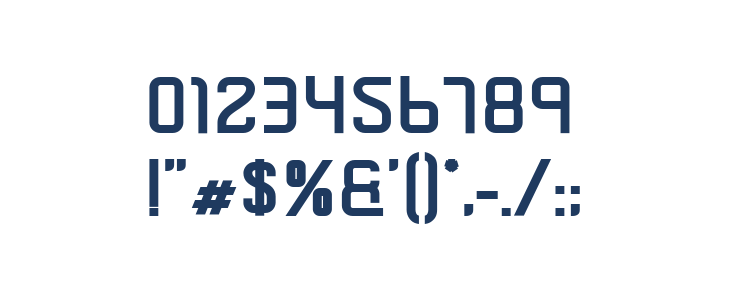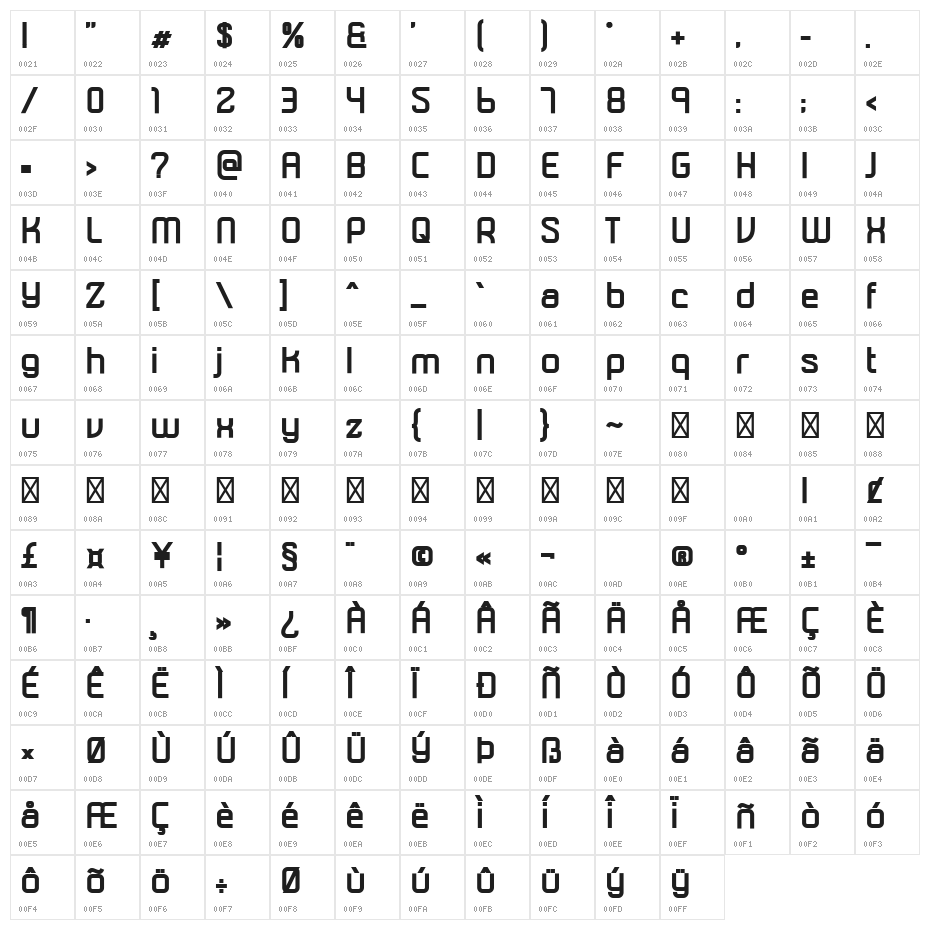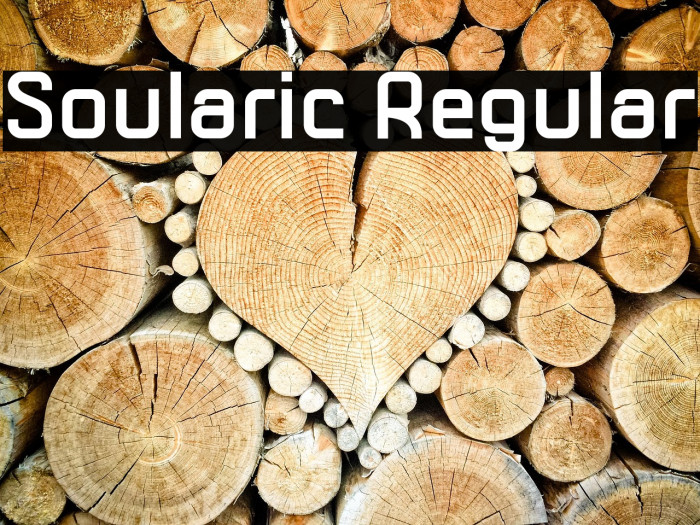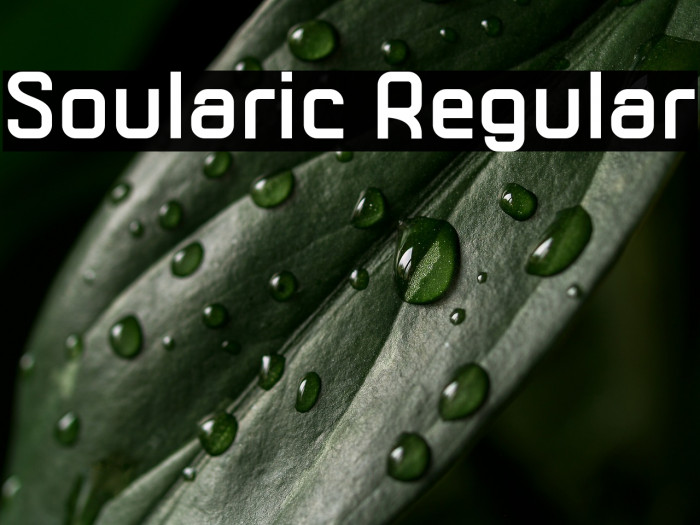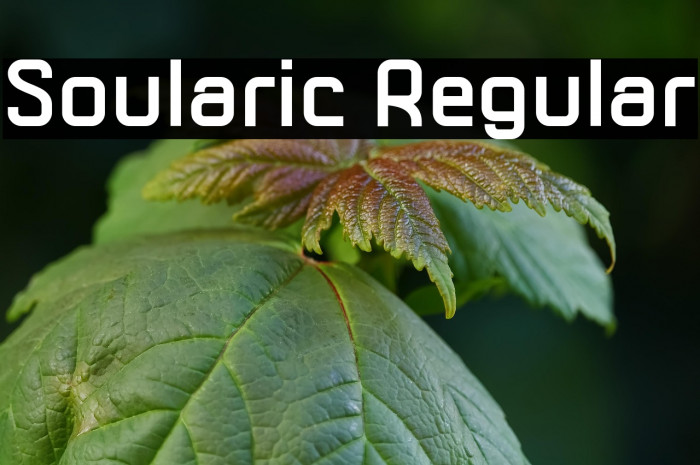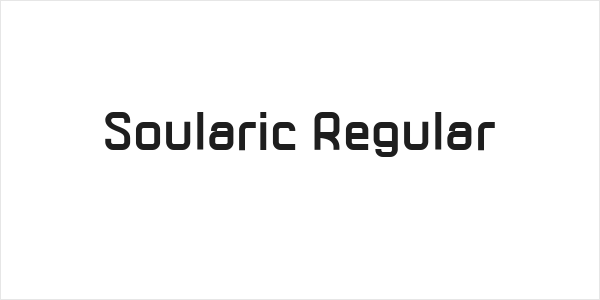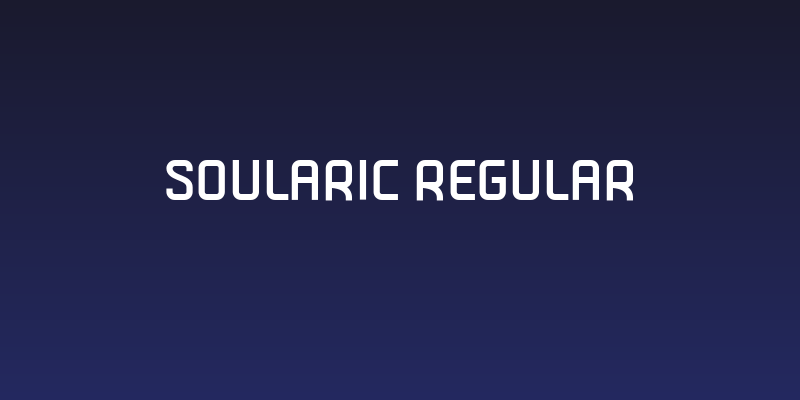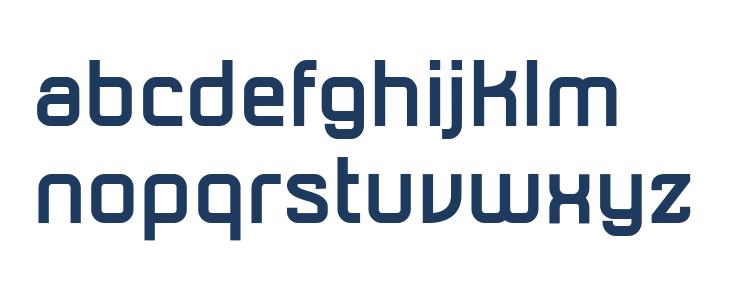
Soularic Regular Font
Soularic Regular Description
This font features a modern, geometric design with a clean and structured appearance. The characters are uniform in width, giving it a monospaced feel, although it is not strictly monospaced. The lines are bold and consistent, with rounded edges that soften the overall look. The uppercase and lowercase letters maintain a cohesive style, with a slight variation in height and width that adds visual interest. The numerals are distinct and easy to read, matching the style of the alphabetic characters. Special characters are well-integrated, maintaining the font's overall aesthetic. This font is versatile, suitable for both digital and print media, offering a contemporary yet approachable look.
| Use Case | Headlines, Logos, Digital Interfaces |
| Proposed Projects | Ideal for branding, digital interfaces, signage, and editorial design projects. |